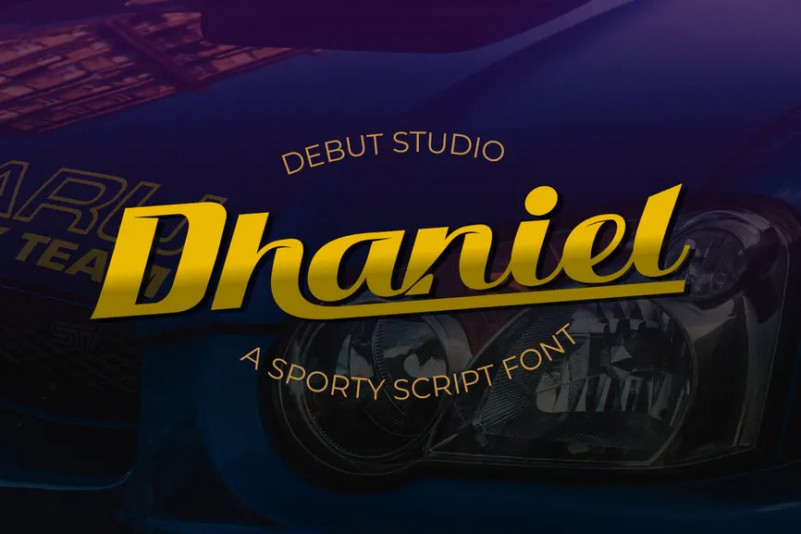
Dhaniel Font
Introducing Dhaniel Script, This font is sporty in style, which allows you to create designs that are sporty and elegant in style very suitable for design needs such as business cards, brochures, magazines and other sporty themed design needs.